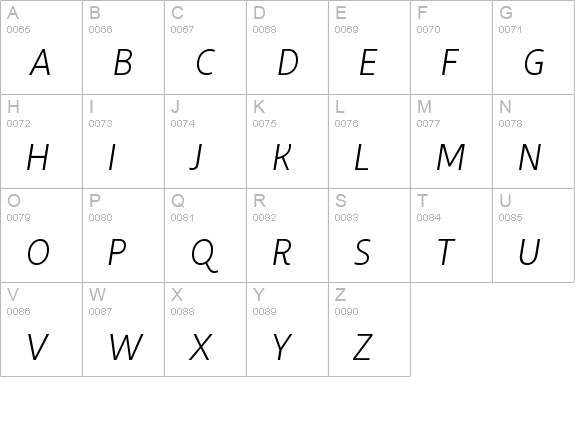
Libertad Light Italic is a refined, elegant, italic variant in the Libertad typeface family \xE2\x80\x94 well suited to elegant body text, refined sub-headings, and luxury branding.
Libertad Light Italic font exudes elegance and sophistication with its delicate and graceful curves. The subtle slant of the italic style adds a touch of modernity to its classic design. Ideal for conveying a sense of sophistication and refinement, this font is perfect for projects that require a touch of finesse. What sets Libertad Light Italic font apart is not only its timeless appeal but also its accessibility. This font is available for free download at FontsMarket.com, making it a versatile and valuable addition to any designer's toolkit. Whether you're working on branding, editorial design, or any creative project that calls for a touch of elegance, Libertad Light Italic font is sure to elevate your work to new heights.